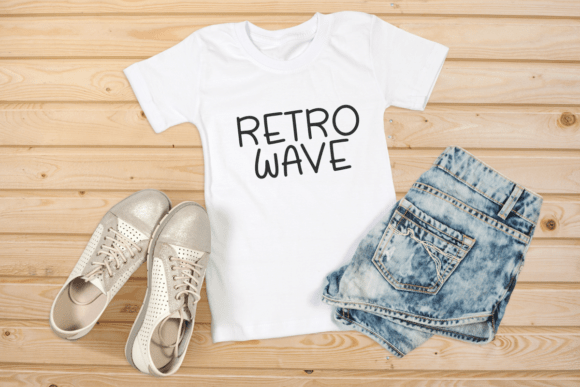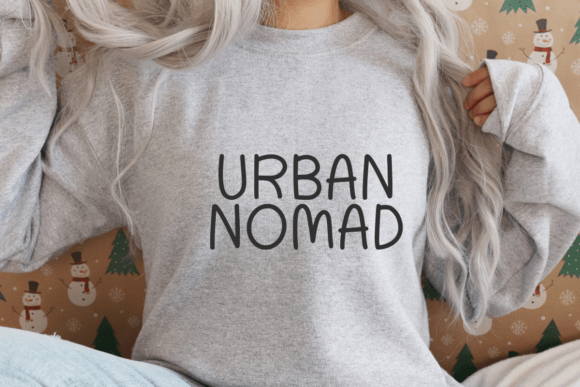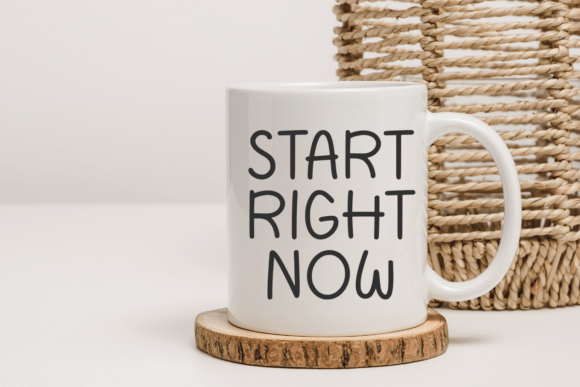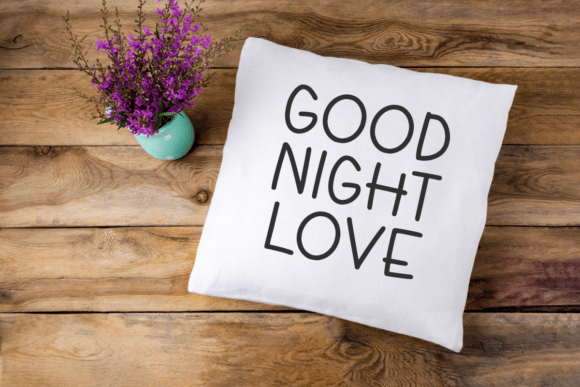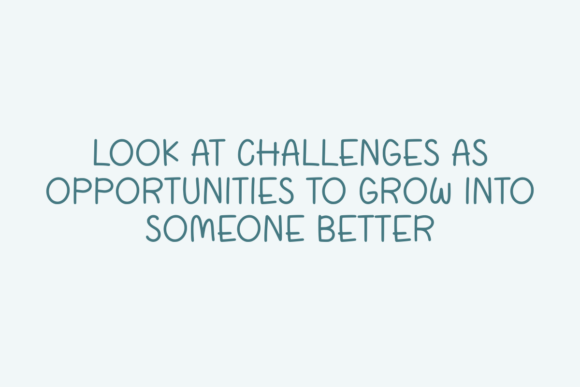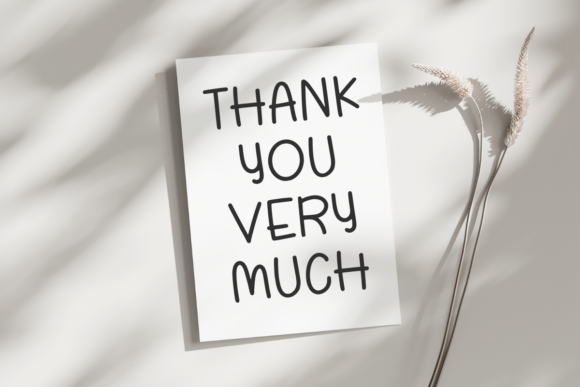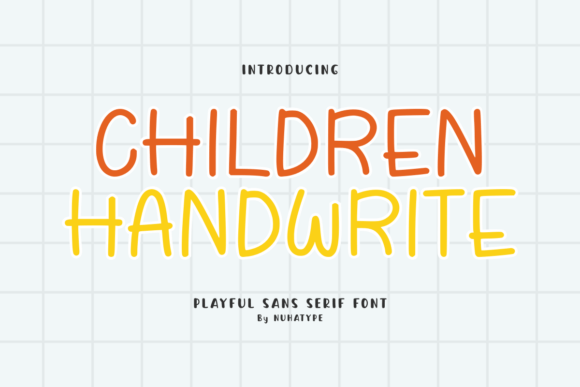
Introducing Children Handwrite Font: The Perfect Addition to Your Crafting Arsenal
Are you a crafter, designer, or educator looking for a font that embodies the spirit of childhood wonder and creativity? Look no further than the Children Handwrite Font, a delightful sans serif handwriting font that is sure to capture the hearts of kids and adults alike. With its soft, friendly, and natural look, this font is the perfect choice for a wide range of crafting projects, from planners and stickers to kids’ worksheets and DIY designs.
The Charm of Children Handwrite Font
Children Handwrite Font is designed to bring a warm, handcrafted feeling to your projects. Its simple strokes and smooth curves make it easy to read and use, while its playful and carefree vibe is sure to add a touch of whimsy to any design. Whether you’re creating craft projects, classroom printables, or simply want to add a personal touch to your bullet journal, this font is the perfect choice.
Perfect for Crafting Moms and Educators
Crafting moms and educators will love the Children Handwrite Font for its versatility and ease of use. The font is optimized for cutting with Cricut and Silhouette machines, making it a breeze to create custom stickers, labels, and other craft projects. Additionally, its smooth curves and simple strokes ensure that it will look great even when scaled up or down, making it perfect for use on a wide range of materials.
Endless Possibilities for Creative Projects
The Children Handwrite Font is incredibly versatile, and can be used for a wide range of creative projects, including:
- Quotes and posters: Add a touch of personality to your inspirational quotes and posters with this charming font.
- Greeting cards: Create custom greeting cards for birthdays, holidays, and other special occasions.
- Kids’ labels: Use the Children Handwrite Font to create fun and colorful labels for kids’ belongings, such as folders, water bottles, and lunchboxes.
- Coloring pages: Add a personal touch to your coloring pages with this delightful font.
- Worksheets: Create engaging and interactive worksheets for kids with the Children Handwrite Font.
- Bullet journals: Add a touch of whimsy to your bullet journal with this playful font.
- Scrapbooks: Use the Children Handwrite Font to create beautiful and personalized scrapbook pages.
- Playful graphic projects: This font is perfect for creating fun and playful graphic projects, such as social media graphics, blog headers, and more.
Why Choose Children Handwrite Font?
So why choose the Children Handwrite Font for your next project? Here are just a few reasons:
- Unique and playful design: This font has a one-of-a-kind design that is sure to stand out from the crowd.
- Easy to read and use: The Children Handwrite Font is incredibly easy to read and use, making it perfect for a wide range of projects.
- Optimized for cutting: This font is optimized for cutting with Cricut and Silhouette machines, making it a breeze to create custom craft projects.
- Versatile: The Children Handwrite Font can be used for a wide range of projects, from craft projects to educational materials.
Get Creative with Children Handwrite Font
Whether you’re a seasoned crafter or just starting out, the Children Handwrite Font is the perfect addition to your crafting arsenal. Its unique and playful design, ease of use, and versatility make it a must-have for anyone looking to add a personal touch to their projects. So go ahead, get creative, and see what amazing things you can create with the Children Handwrite Font!